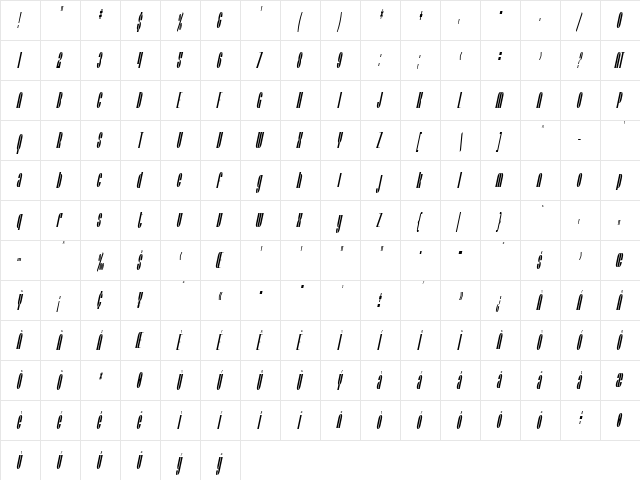
SF Baroquesque Condensed Oblique
Design Context for SF Baroquesque Condensed Typeface
SF Baroquesque Condensed is a composed and adaptable typeface that performs quietly and consistently across a wide range of design contexts. Its italic angle brings a sense of urgency and motion to the letterforms. The condensed width makes it efficient for tight spaces without sacrificing legibility.
Pro Tip: Use SF Baroquesque Condensed for emphasis, pull quotes, and subheadings where its slanted energy can add rhythm to the layout.